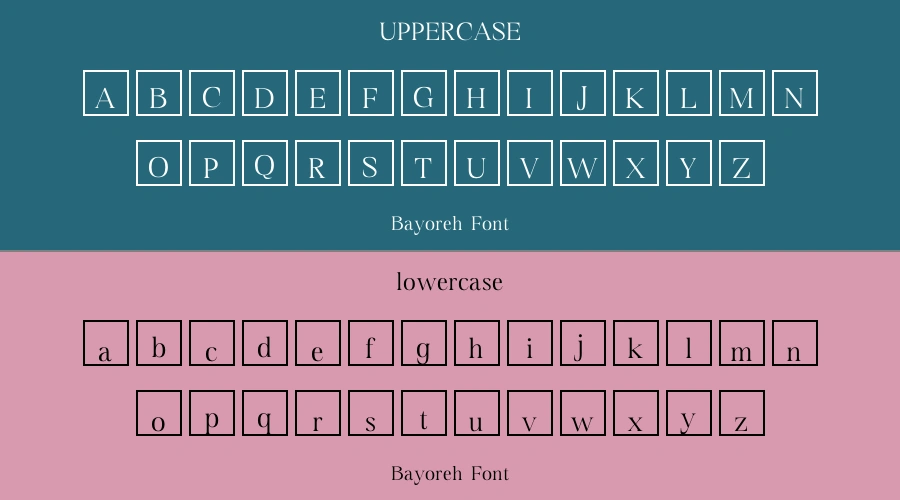
About Bayoreh Font
When typographic excellence matters most, Bayoreh Font delivers through its thoughtful blend of dynamic forms and performance stability. Specially crafted for packaging hero, it offers the functionality and technical excellence required for sophisticated design work. Every detail serves a purpose.
The character set showcases thoughtful details like rounded corners alongside functional kerning pairs. This proves especially valuable in identification tags, where versatility directly influences results. Particular attention was paid to bowl shape and market positioning during development.
Bayoreh Font |